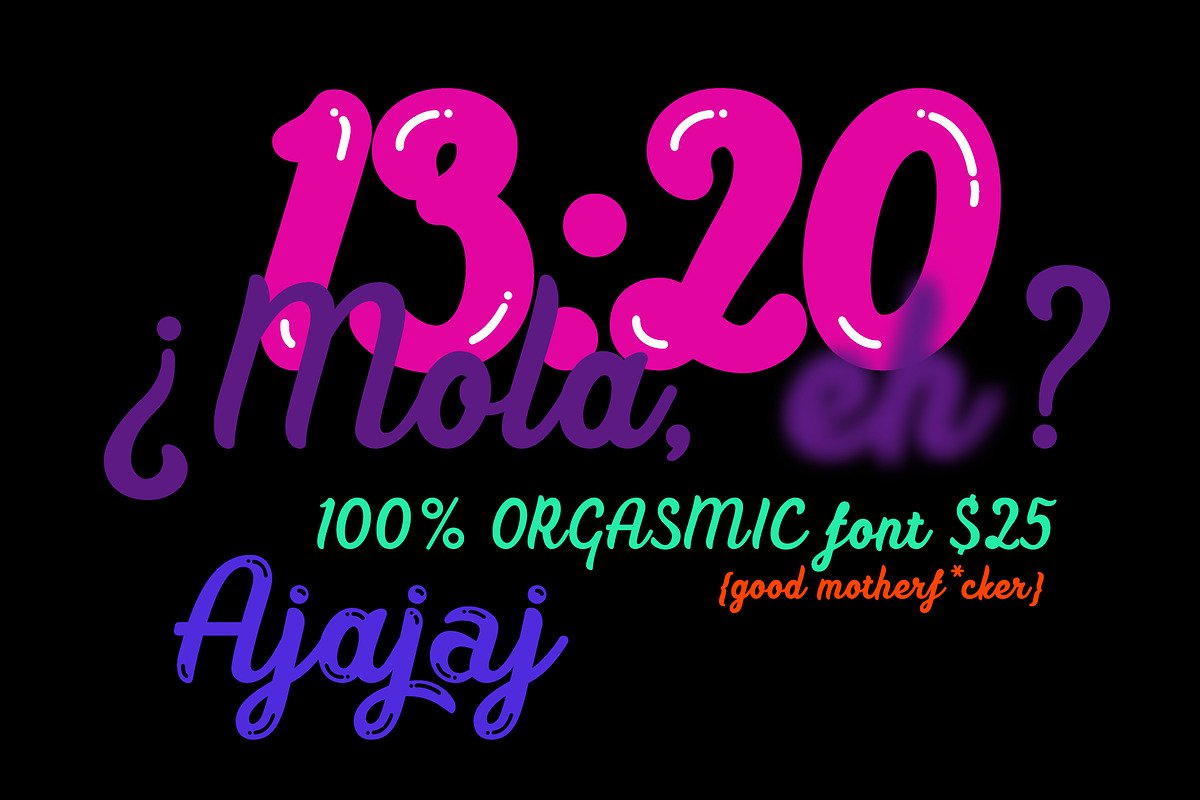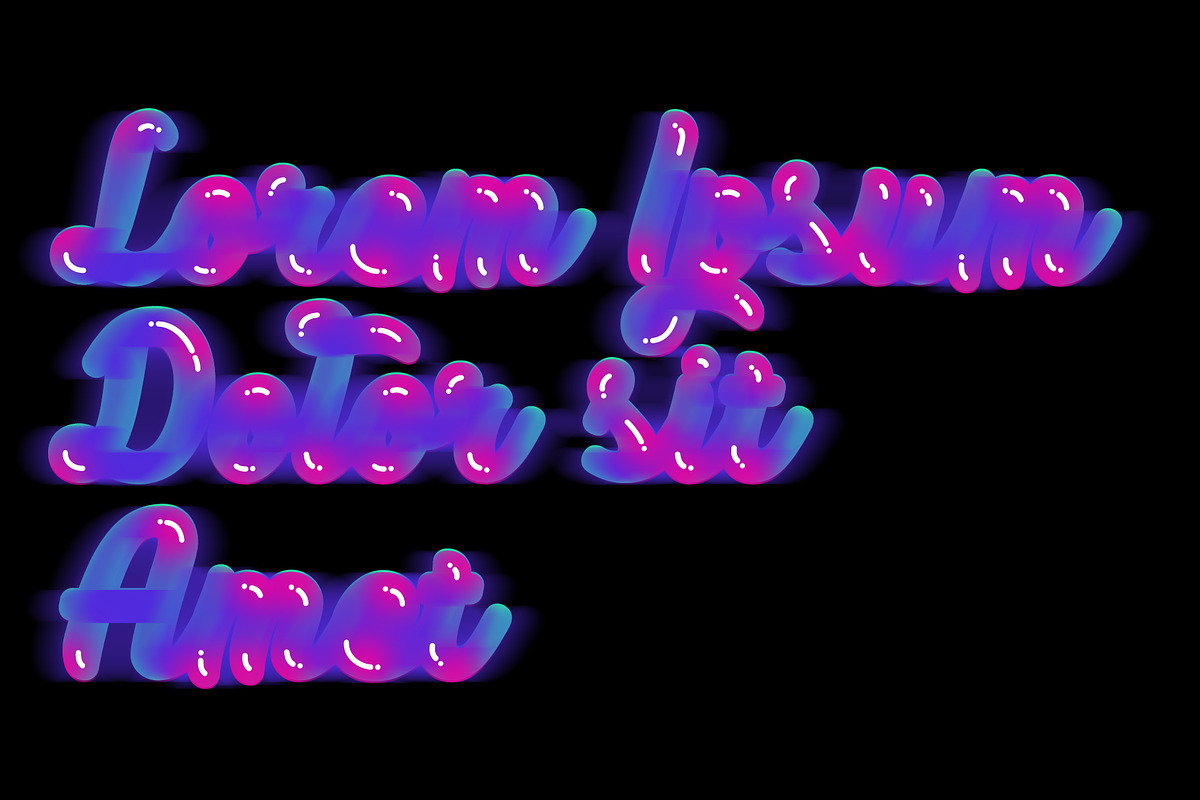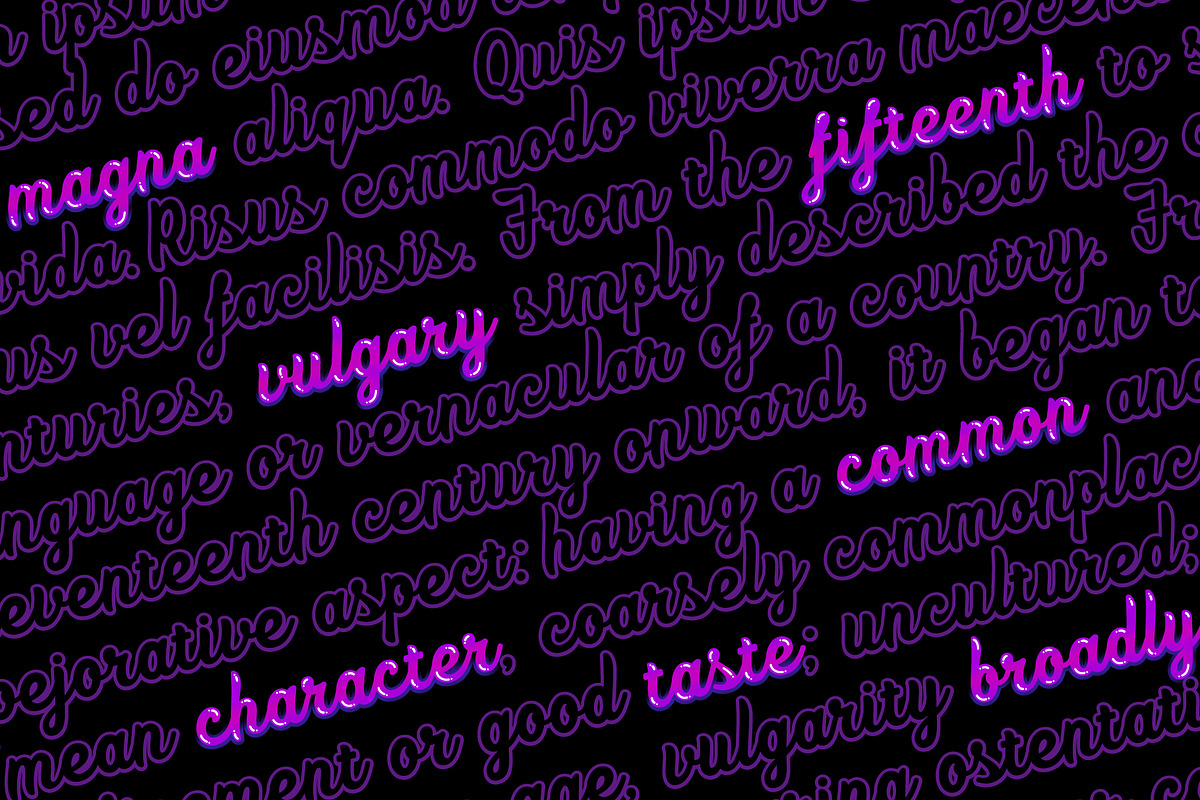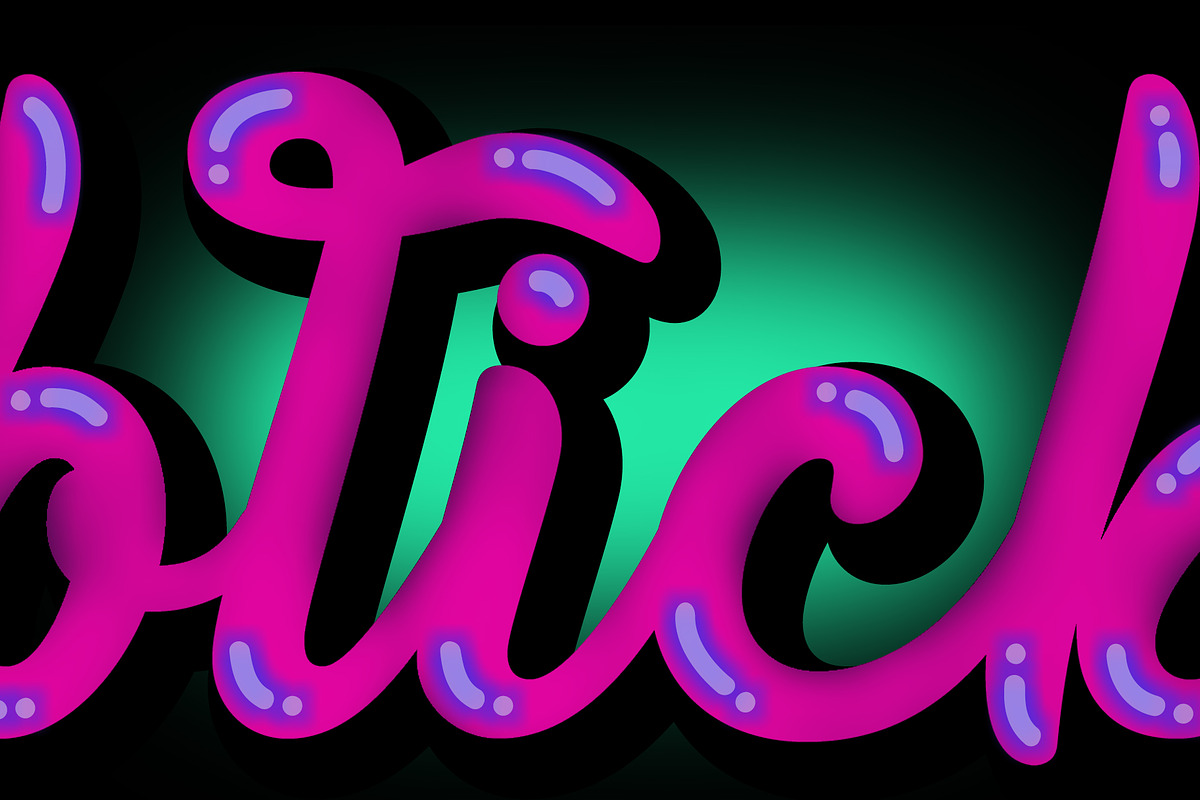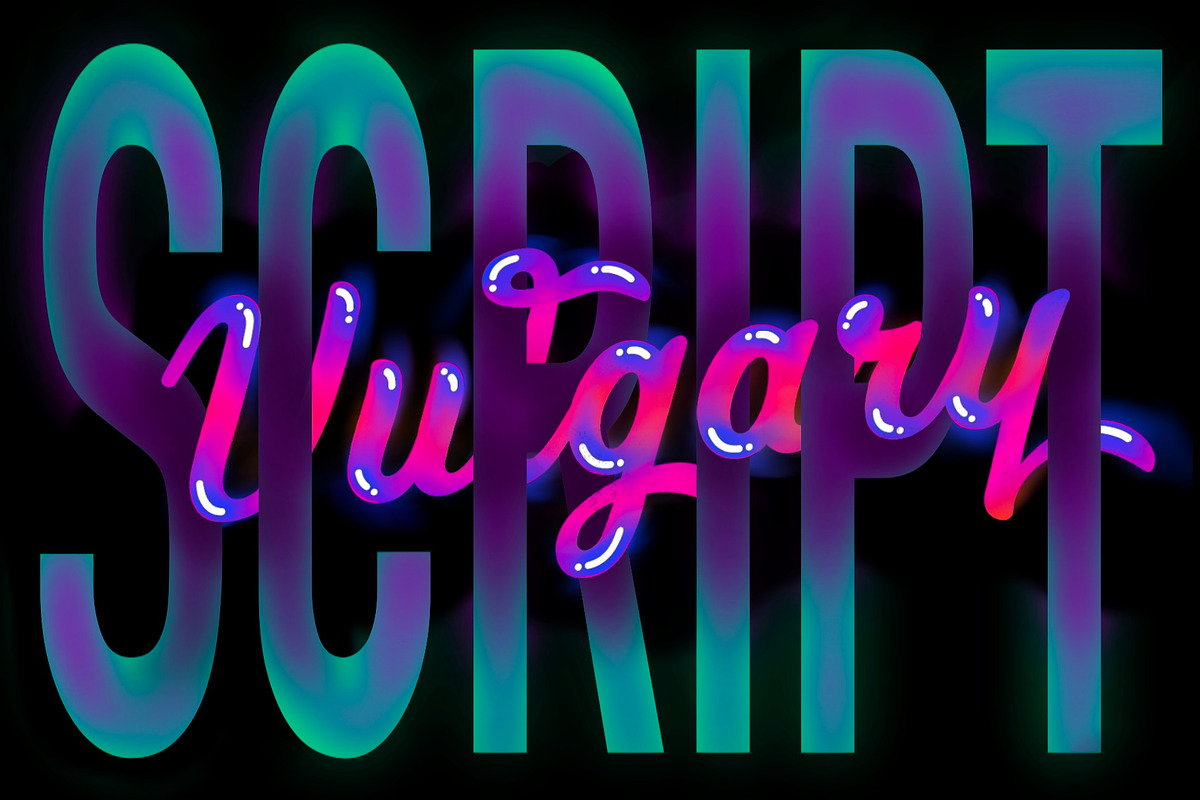
Vulgary is a script family that includes 4 fonts. They match each other but can be used separately as well. It supports all euro languages based on Latin alphabet. To use swashes you have to open glyphs panel in menu Window. The font is compatible on both Windows and Mac. You can use it in all popular apps like Adobe, Corel Draw, Microsoft, Final Cut etc.